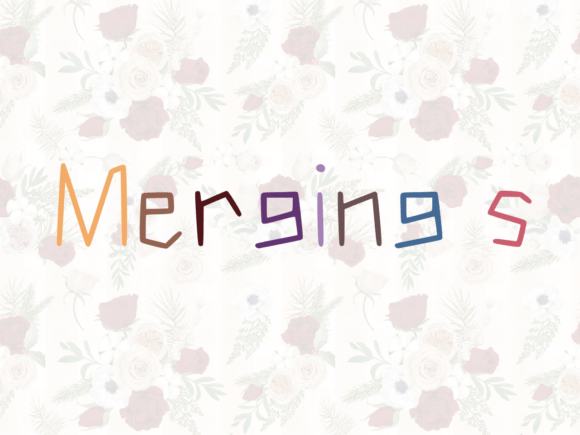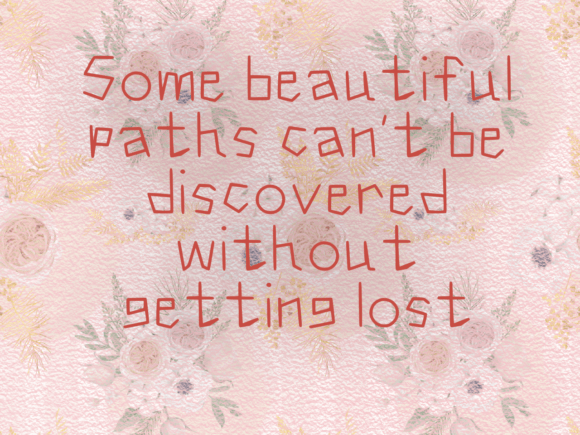
About Merging S Font
Merging S is a fun and quirky handwritten font designed to infuse a sense of playfulness into your creative projects. Whether you’re working on cartoon-related designs, children’s games, or any creation that calls for a delightful touch, this font emerges as an amazing choice.
The fun factor of Merging S is immediately apparent, making it an excellent choice for projects that require a lighthearted and whimsical vibe. The handwritten style adds a personal touch, creating a unique and engaging quality that resonates with the audience.
The quirky elements of Merging S set it apart, making it ideal for designs that aim to capture the imagination, especially in contexts related to cartoons or children’s themes. This font brings a sense of joy and creativity, creating a visual experience that is both fun and memorable.
Incorporating Merging S into your projects is an invitation to infuse them with a lovely touch. Its versatility makes it well-suited for a variety of creative endeavors where a playful and charming aesthetic is desired.
In summary, Merging S is more than just a font; it’s a fun and quirky design asset that adds a delightful touch to your projects. Whether you’re creating content for children or infusing a sense of playfulness into your designs, Merging S stands ready to be the font that brings a smile to your audience.